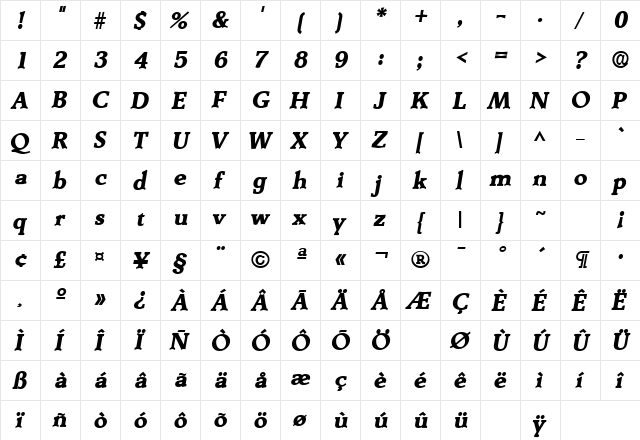
DerringerLH Bold Italic
Design Context for DerringerLH Typeface
DerringerLH takes a measured approach to typography — its balanced proportions and neutral character make it a reliable workhorse for both digital and print work. The dynamic lean of this cut emphasises speed and emphasis in any layout. The heavy weight commands attention and anchors typographic hierarchies.
Pro Tip: Use DerringerLH for emphasis, pull quotes, and subheadings where its slanted energy can add rhythm to the layout.